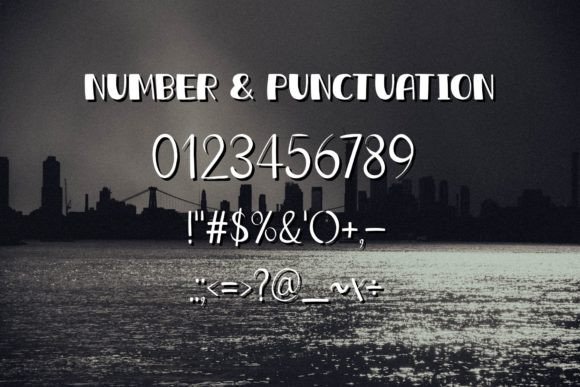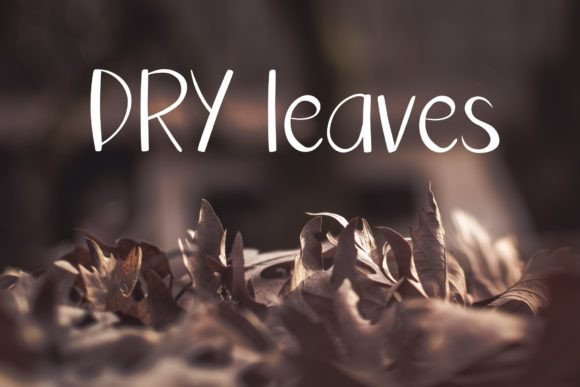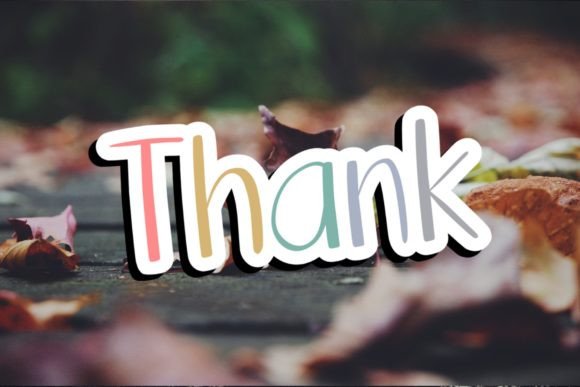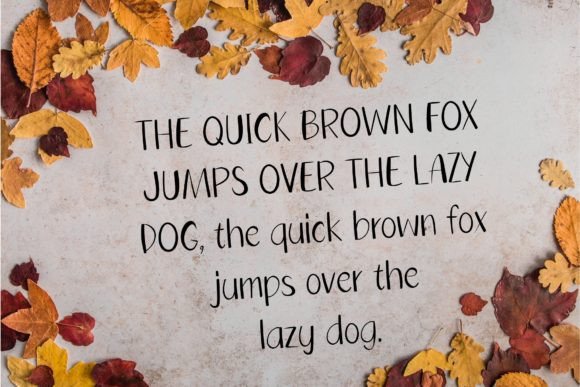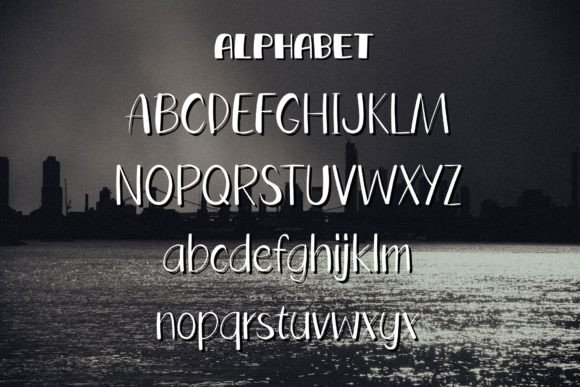
Introduction to Dont Worry Font
Dont Worry is a basic handwritten font.
This font is the perfect fit for all of your logos, branding, social media, crafty DIY projects, and much more .
Key Features of Dont Worry Font